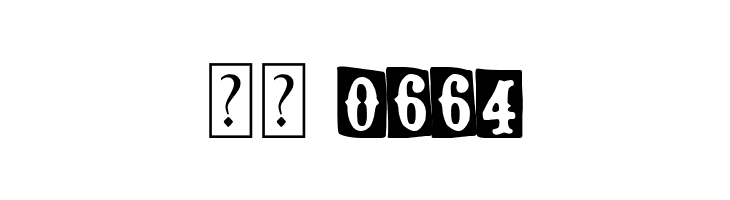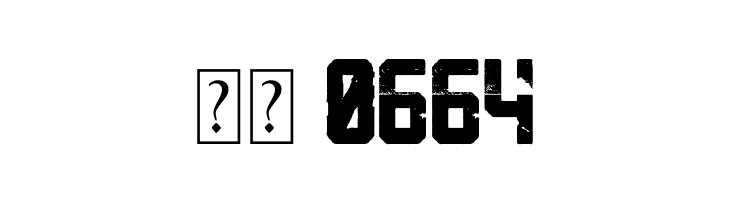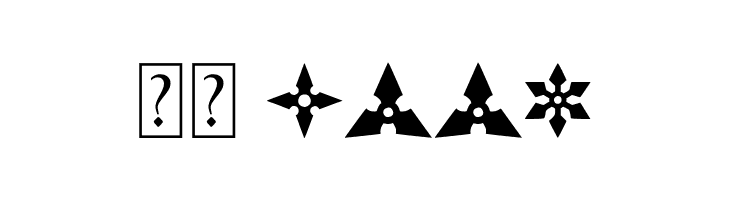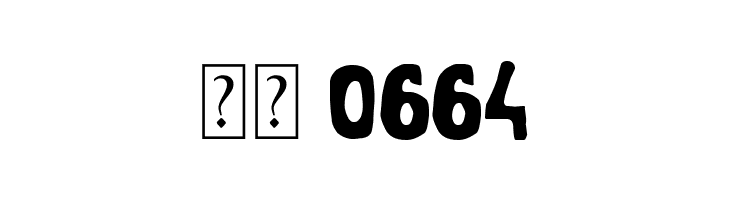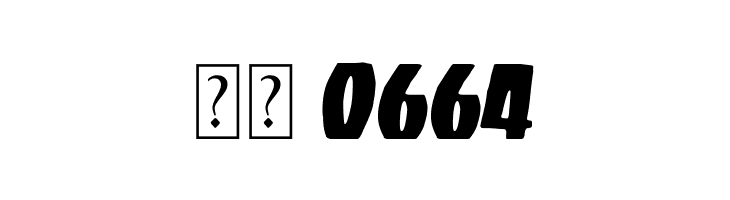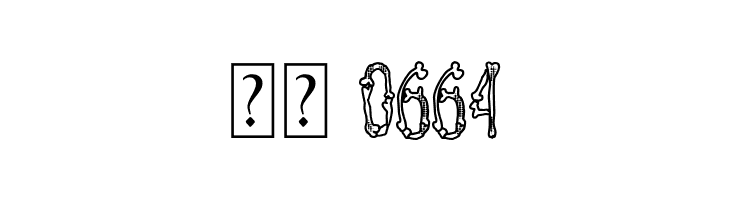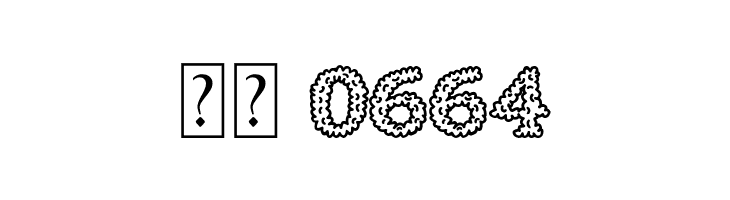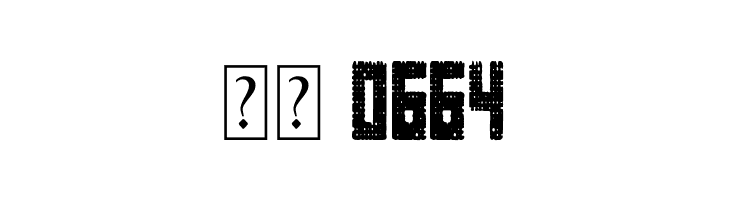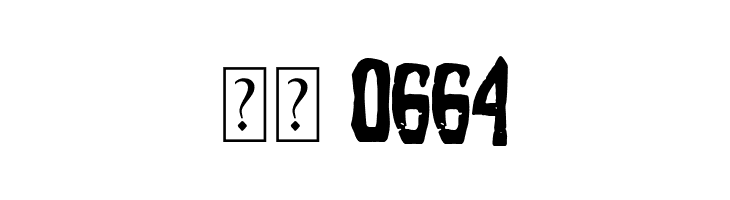
• Señor Domingo
A bold, distressed font with a rugged, vintage appearance.
• Señorita Esmeralda
A bold, decorative font with a playful, vintage poster style.
• Sentencia
A bold, textured font with a vintage, distressed style.
• Sentencia
A bold, textured font with a rugged, vintage feel.
• Sergi Tete
A bold, playful font with rounded edges and a chunky, whimsical style.
• Serial Font
A bold, jagged, and energetic font with a graffiti-like style.
• Serial Killer 2021
A jagged, chaotic font with elongated strokes and irregular spacing.
• Serigraphy
Bold, decorative slab serif with dotted fill and vintage flair.
• Set of Teeth
A bold, playful font with a cartoonish, dynamic style.
• Seven Sisters
A bold, decorative font with a three-dimensional outline and lightning bolt accents.
• Seville Kid
A bold, vintage-style serif font with thick, block-like serifs and a strong presence.
• Sheriff
Sheriff and Wild West icon-based decorative font.
• Sherwood Forest
Ornate, distressed decorative display font with vintage flair.
• Shooter
Decorative pictogram font with shooter-themed silhouettes.
• Shuriken
A bold decorative font featuring shuriken silhouettes as glyphs.
• Silver World
A rugged, distressed font with a hand-carved, organic appearance.
• Simple Cream
A playful, handwritten font with a modern and approachable style.
• Simple Cream
A playful, handwritten font with tall, narrow letters and a casual style.
• Simple Myopia
A bold, dotted font with a textured, pixelated appearance.
• Simulacro
• Sistema Central